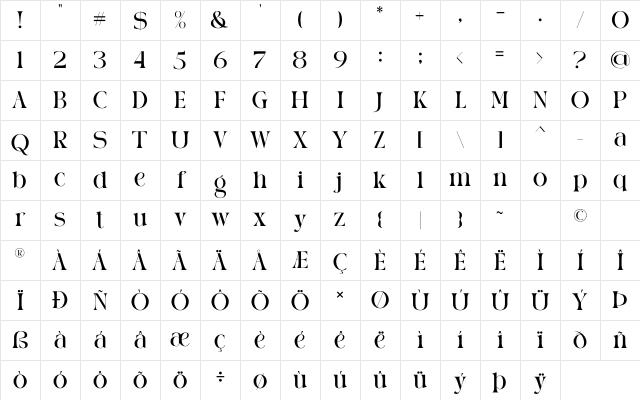
AURA LUXESS Regular
Designer: ToniStudio
Design Context for AURA LUXESS
AURA LUXESS is a composed and adaptable typeface that performs quietly and consistently across a wide range of design contexts.